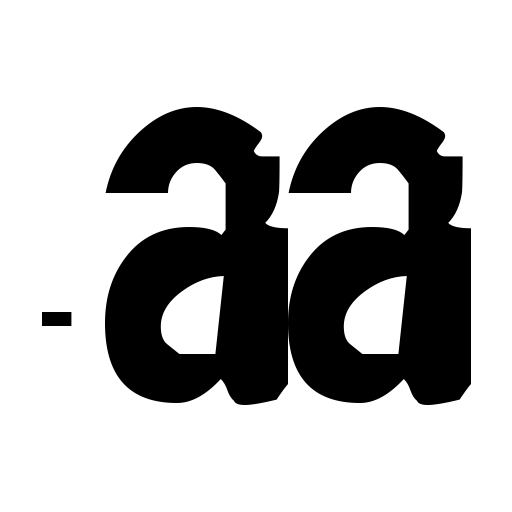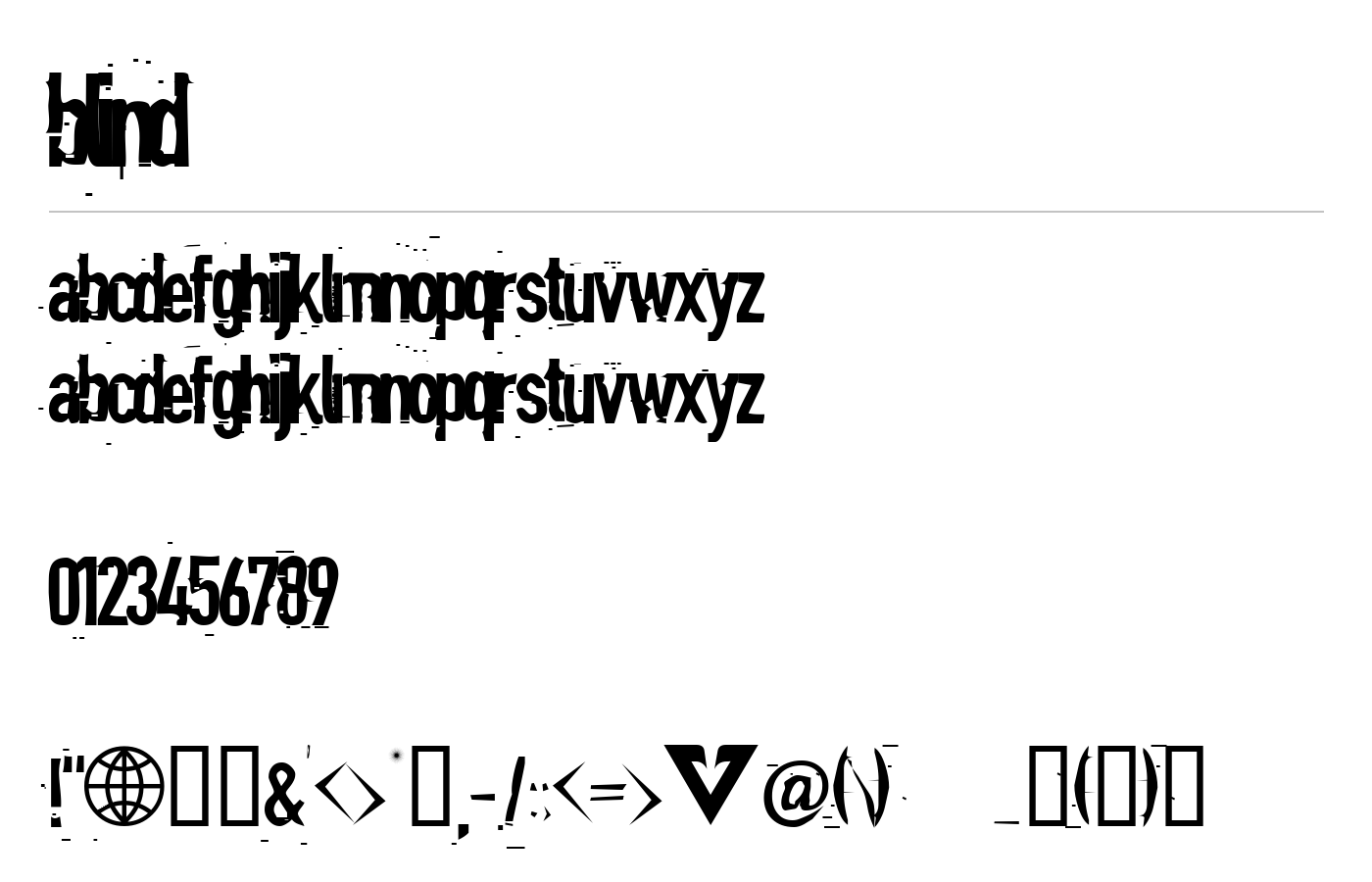
Blind Font is a condensed, bold sans serif typeface with a modern and slightly geometric feel. Its tall x-height and tight spacing create a striking and impactful appearance, making it ideal for headlines, branding, and display use where strong visual presence is needed. This font suits contemporary, edgy designs that want to convey confidence and clarity.
Blind Font